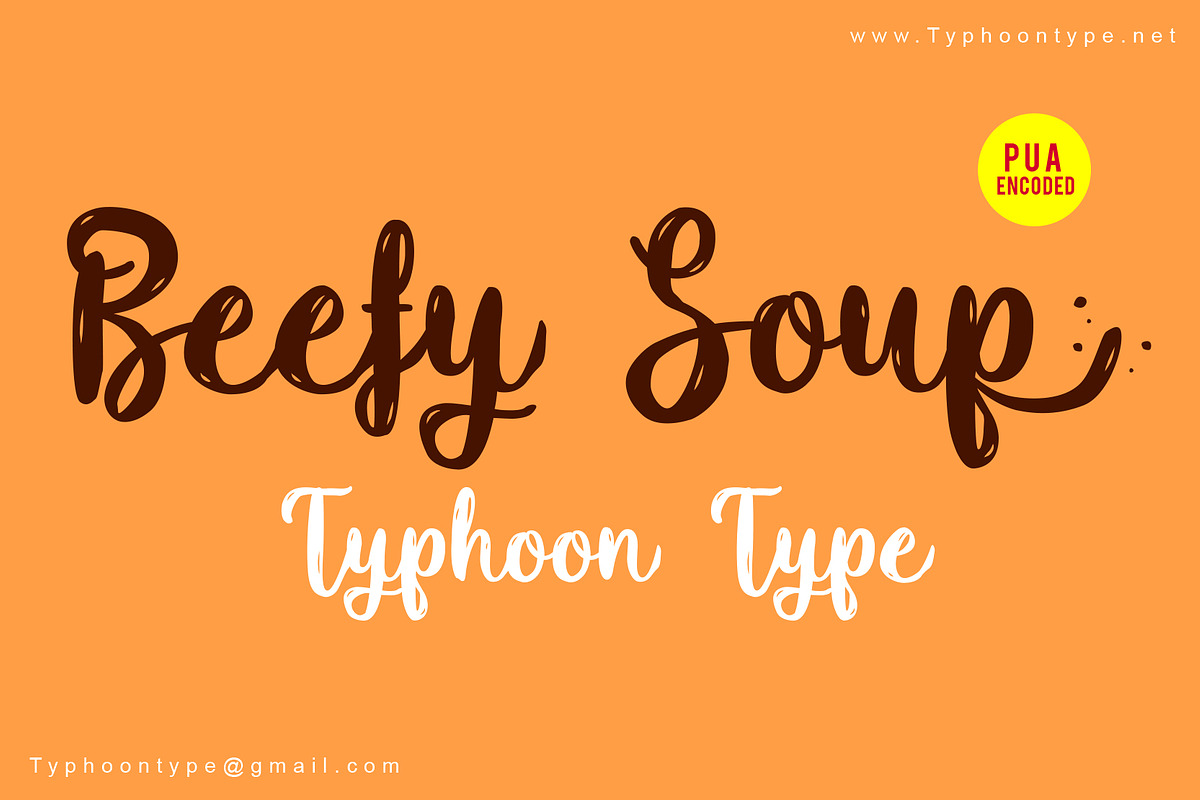
Beefy Soup font
Beefy Soup This Font perfect for logos, name tag, advertising, product packaging, clothing, social media & greeting cards.
Why Beefy Soup font is worth a look
Beefy Soup font by TyphoonStudio fits naturally into Branding, posters, packaging, typography.